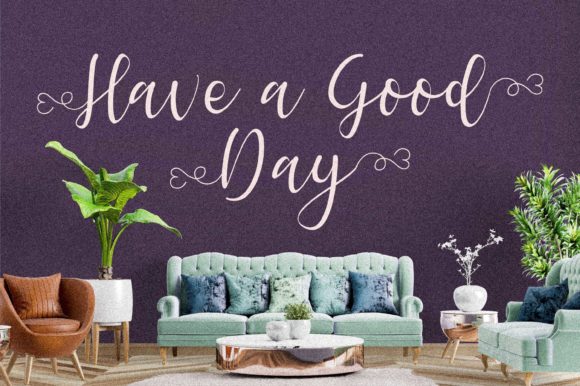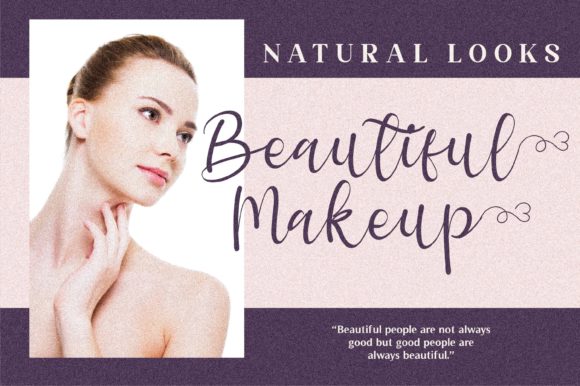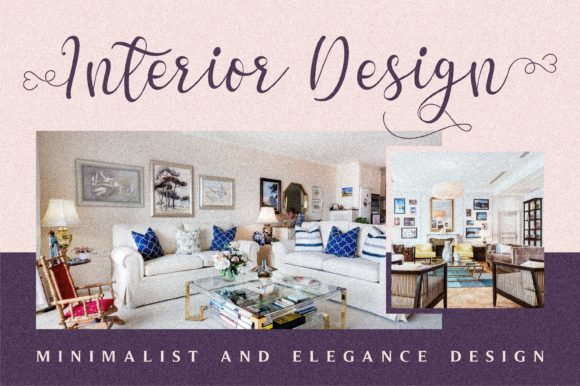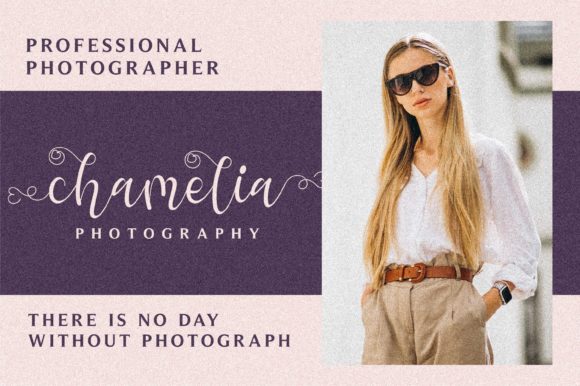
About Hello Chamelia Font
Hello Chamelia is a charming and delightful handwritten font that adds a touch of whimsy and personality to your design projects. With its playful and handcrafted style, this font is perfect for creating a friendly and inviting atmosphere.
The flowing and organic letterforms of Hello Chamelia exude a sense of warmth and approachability. Each letter is carefully designed to capture the essence of handwriting, with slight irregularities and varying stroke weights that give it a natural and authentic feel. The gentle curves and bouncy nature of the font create a sense of liveliness and energy.
One of the great features of Hello Chamelia is its extensive set of glyphs and swashes, which are easily accessible thanks to the PUA encoding. This allows you to access a wide range of alternate characters, ligatures, and decorative elements to add even more personality to your text. You can experiment with different letter variations and flourishes to create unique and eye-catching designs.
Hello Chamelia is suitable for a variety of design projects. Whether you’re working on greeting cards, invitations, branding materials, social media posts, or any other creative endeavor, this font will bring a charming and handmade touch to your work. It is particularly well-suited for designs that aim to evoke a sense of joy, friendliness, and creativity.
The legibility of Hello Chamelia ensures that your message is conveyed clearly while maintaining its playful and handwritten aesthetic. It strikes a balance between readability and artistic expression, making it suitable for both short and longer texts. The font’s personality shines through without compromising the clarity of the words.
In summary, Hello Chamelia is a lovely handwritten font that brings a charming and whimsical touch to your design projects. With its playful style, extensive glyphs, and PUA encoding, this font offers versatility and creativity in your designs. Whether you’re working on invitations, branding, or any other project that requires a charming appearance, Hello Chamelia will add a delightful touch that captivates your audience.